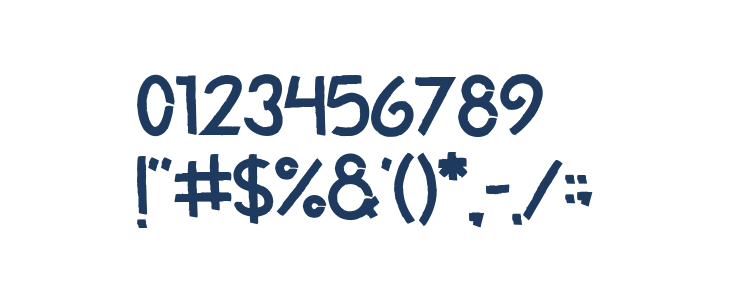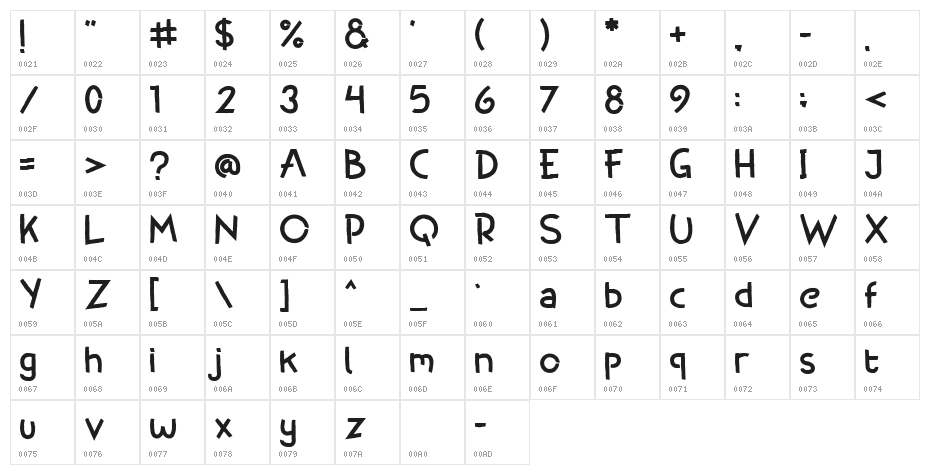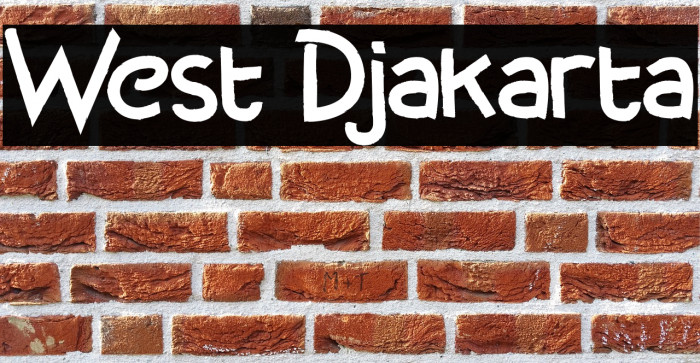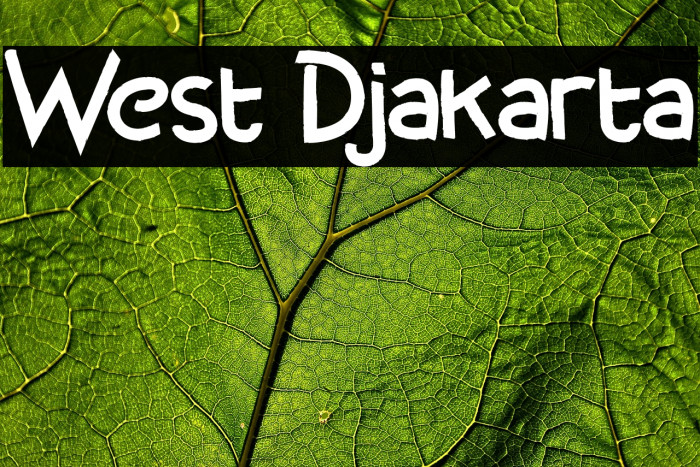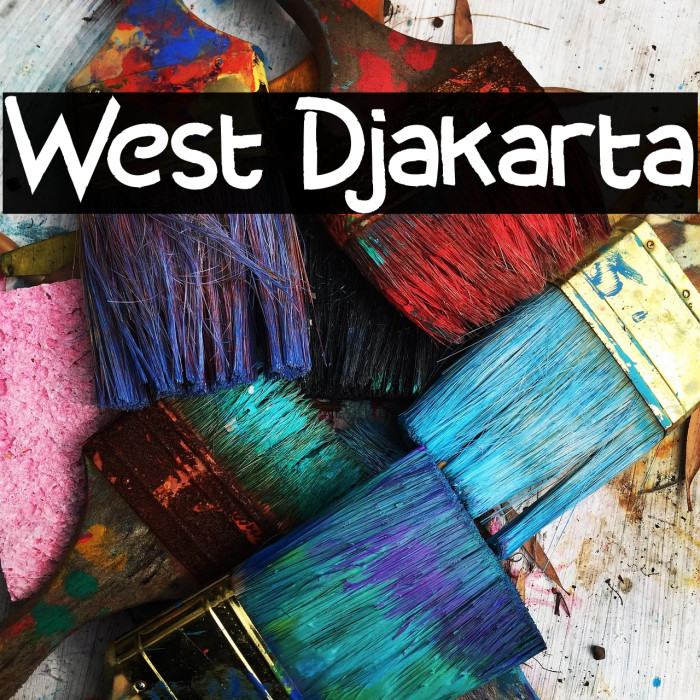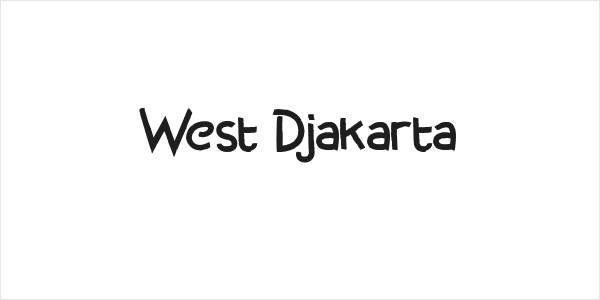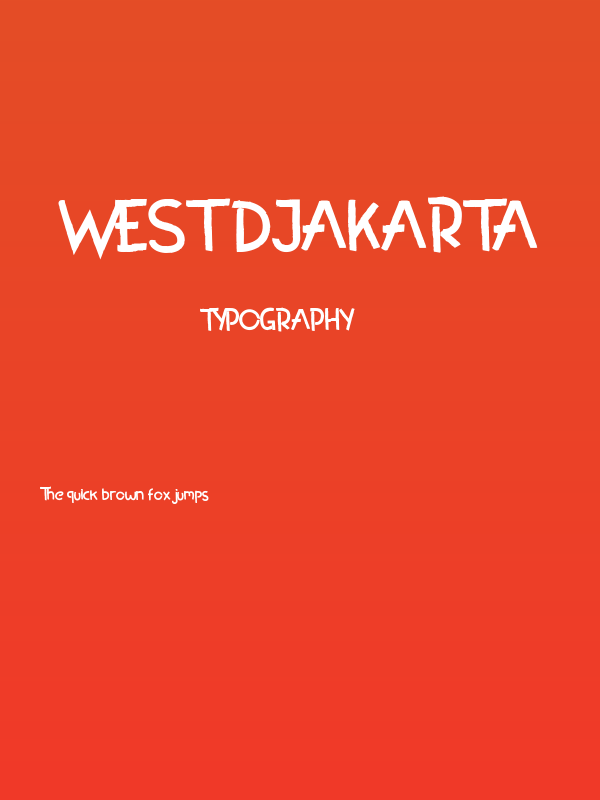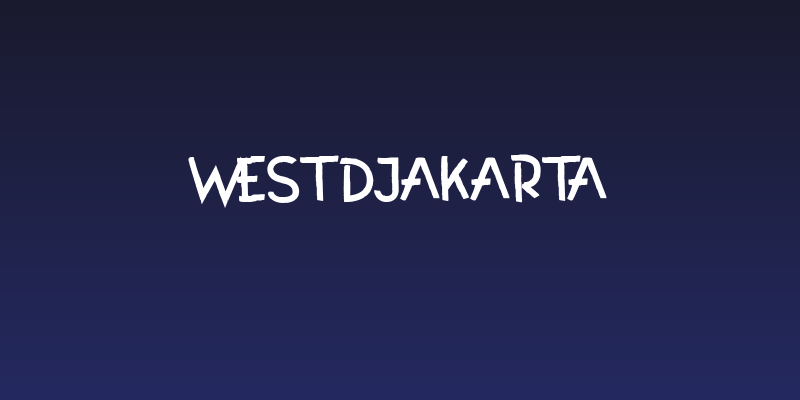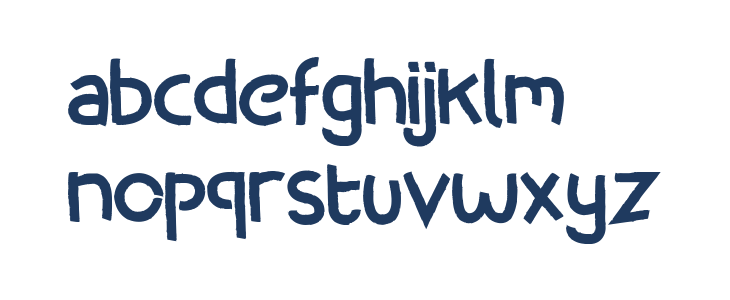
West Djakarta Font
West Djakarta Description
This font exhibits a bold and dynamic handwritten style, characterized by its thick strokes and slightly irregular shapes, giving it a lively and informal appearance. The uppercase letters are tall and slightly narrow, while the lowercase letters maintain a consistent height, contributing to a cohesive look. The numbers are bold and easily readable, matching the overall playful aesthetic. Special characters are creatively designed, adding to the font's unique personality. This font is ideal for projects that require a personal touch or a sense of spontaneity.